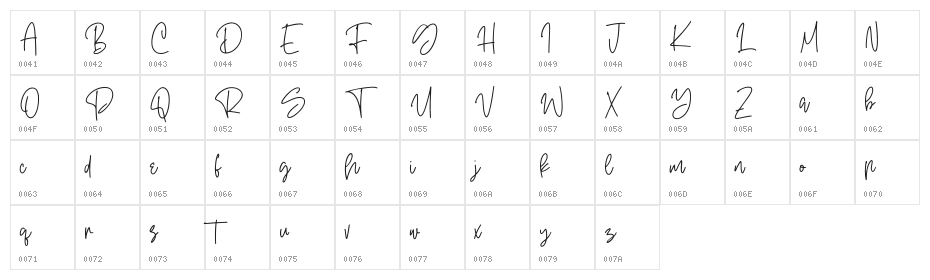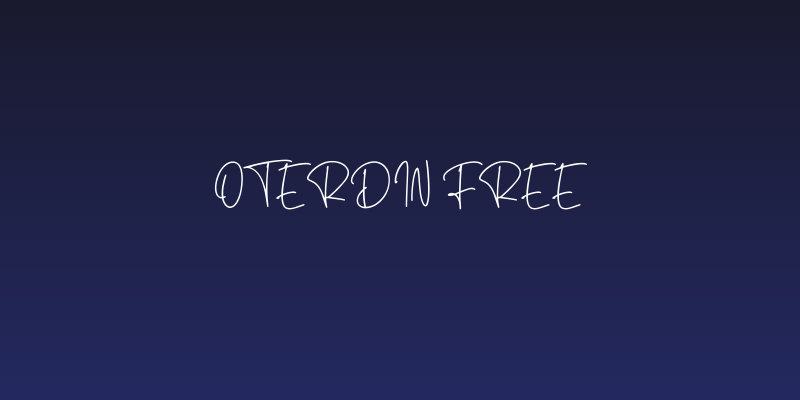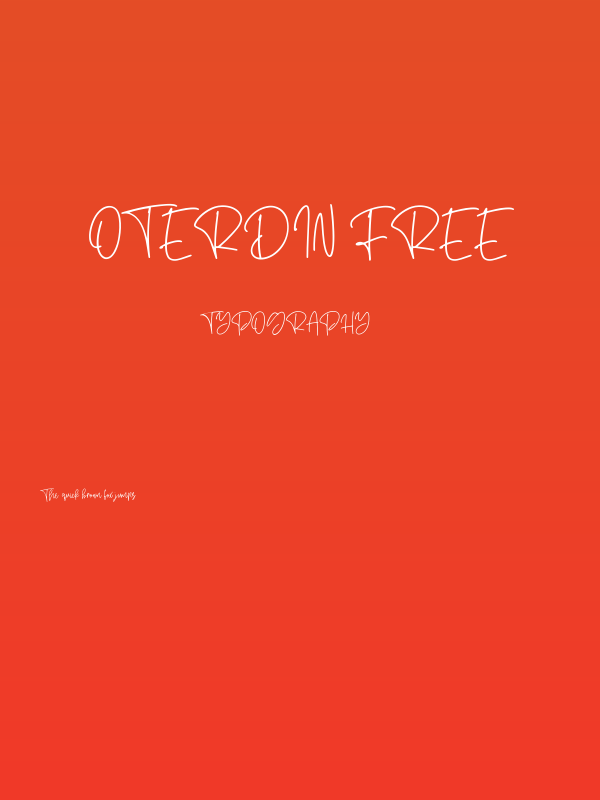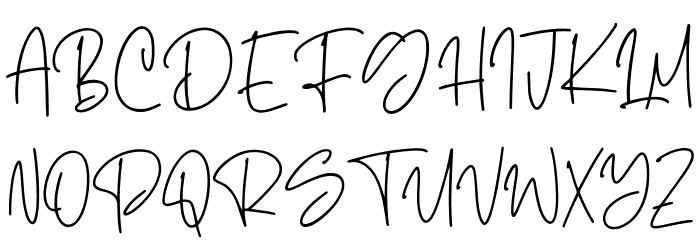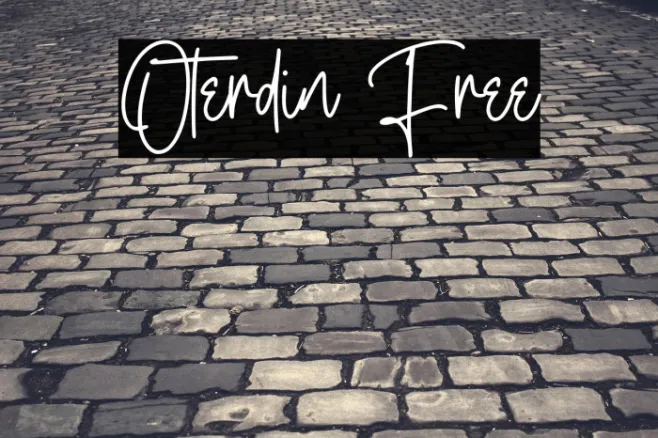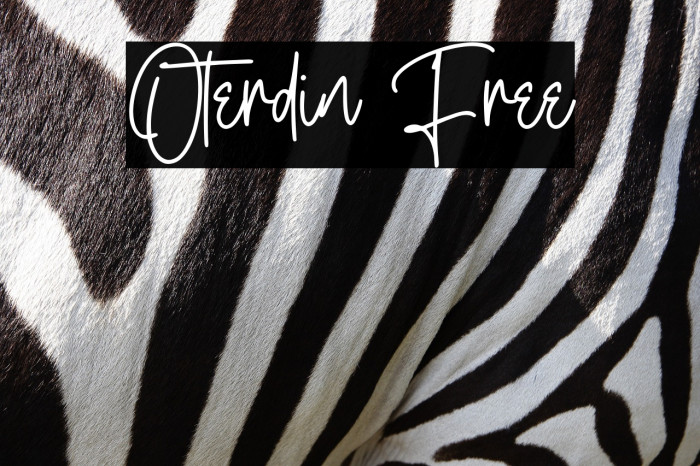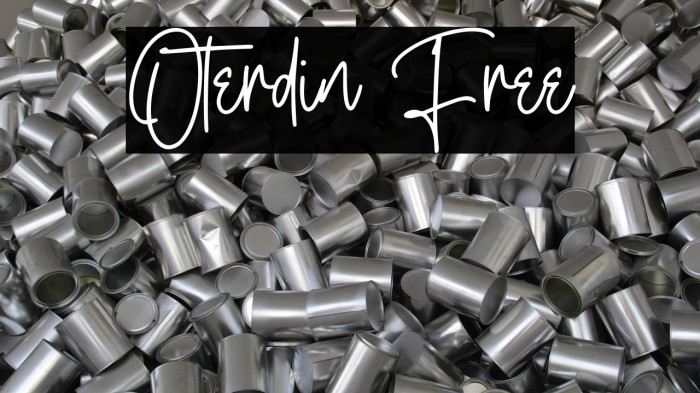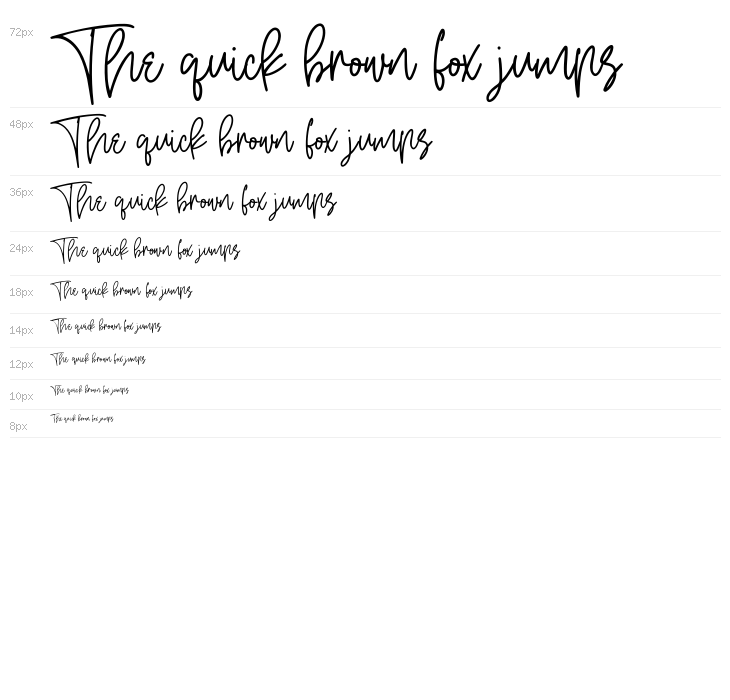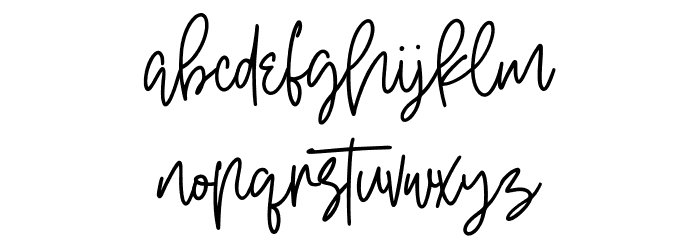
Oterdin Free Font
Oterdin Free Description
This font exhibits a playful and dynamic handwritten style, characterized by its flowing and interconnected strokes. The uppercase letters have a unique flair, with some characters featuring loops and swirls that add a touch of elegance and whimsy. The lowercase letters maintain a consistent rhythm, with smooth curves and a natural, casual appearance. The overall design is both artistic and approachable, making it suitable for a variety of creative projects. The font's distinctive personality is enhanced by its slightly irregular baseline, which contributes to its charm and individuality.
| Proposed Projects | Ideal for greeting cards, invitations, personal branding, and creative social media graphics. |